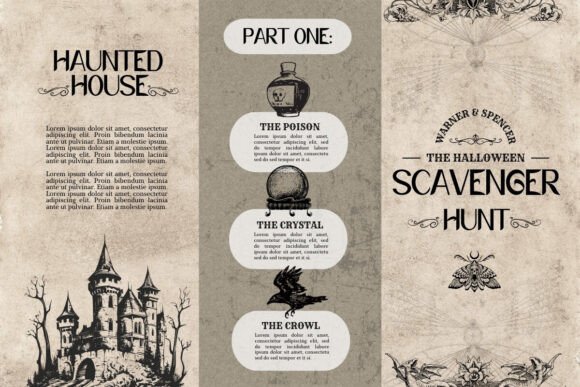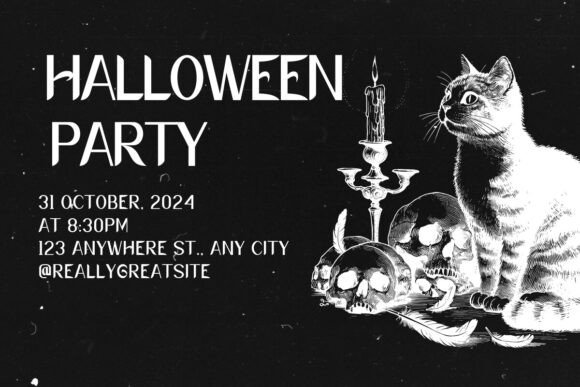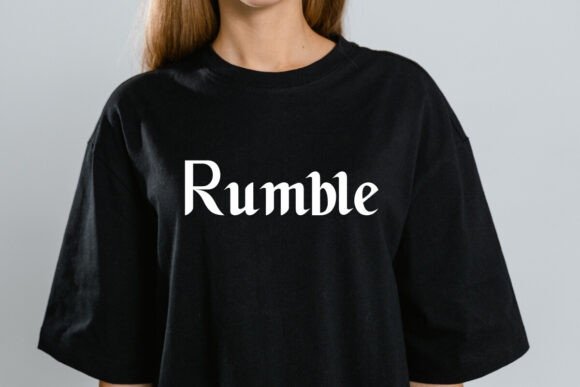
Introduction to Gozilla Font
Have you ever found yourself scribbling down ideas on a sticky note, only to realize that your handwriting is more like a work of art than a legible note? That was me, and it sparked the idea for my next creative project. I stumbled upon the Gozilla Font, a beautiful blackletter font that instantly caught my eye. Its unique style and character made me wonder: what other amazing designs could I create with this font?
As a designer, I know how valuable it is to have a high-quality design resource like Gozilla Font at your disposal. With its versatility and free download option, you can use it for everything from taking notes to creating social media posts. Whether you’re working on a personal project or a client’s design, Gozilla Font is a great addition to your toolkit. And the best part? You can even use it on a transparent background to really make your designs pop.
From banners to greeting cards, the possibilities are endless with Gozilla Font. And with its free download option, you can start creating your next masterpiece right away. So why not give it a try and see what amazing designs you can come up with?
Key Features of Gozilla Font
- High-quality, professional design suitable for various creative projects
- Unique characteristics include a bold and modern style, making it perfect for headlines and titles
- Can be easily integrated into various design projects, including print and digital media, due to its high-quality design
Honest Review: Gozilla Font
As a designer, I’m always on the lookout for high-quality fonts to elevate my creative projects. Recently, I had the chance to try out the Gozilla Font, and here’s my honest review.
What works well: ✨ The Gozilla Font has a unique and modern design that’s perfect for adding a touch of edginess to your projects. It’s also incredibly versatile, with a wide range of weights and styles to choose from. Plus, the transparent background makes it easy to customize and combine with other design elements.
- High quality: The Gozilla Font is a premium-quality font that’s sure to impress. It’s perfect for use in logos, branding, and other design projects where you want to make a statement.
Limitations: ⚠️ While the Gozilla Font is generally high-quality, I did notice that it can be a bit too bold at times. This can be a challenge if you’re trying to create a more subtle design. Additionally, the font may not be suitable for use in body text, as it can be difficult to read at smaller sizes.
Overall, I’m impressed with the Gozilla Font. It’s a great resource for designers who want to add a touch of modernity and edginess to their projects. With its high quality, versatility, and free download option, it’s definitely worth checking out.
The Gozilla Font is a versatile and creative design resource that can be used in a variety of projects. This high-quality font is available for free download, making it an excellent choice for designers and artists looking for a unique and eye-catching element to add to their work.
Tips for Getting the Most Out of Gozilla Font
To get the most out of the Gozilla Font, consider the following tips:
- Use the font with a transparent background to create a unique and eye-catching effect.
- Experiment with different font sizes and styles to create visual interest.
- Combine the Gozilla Font with other design elements, such as graphics and images, to create a cohesive and engaging design.
Common Use Cases for Gozilla Font
The Gozilla Font is commonly used in a variety of creative projects, including: